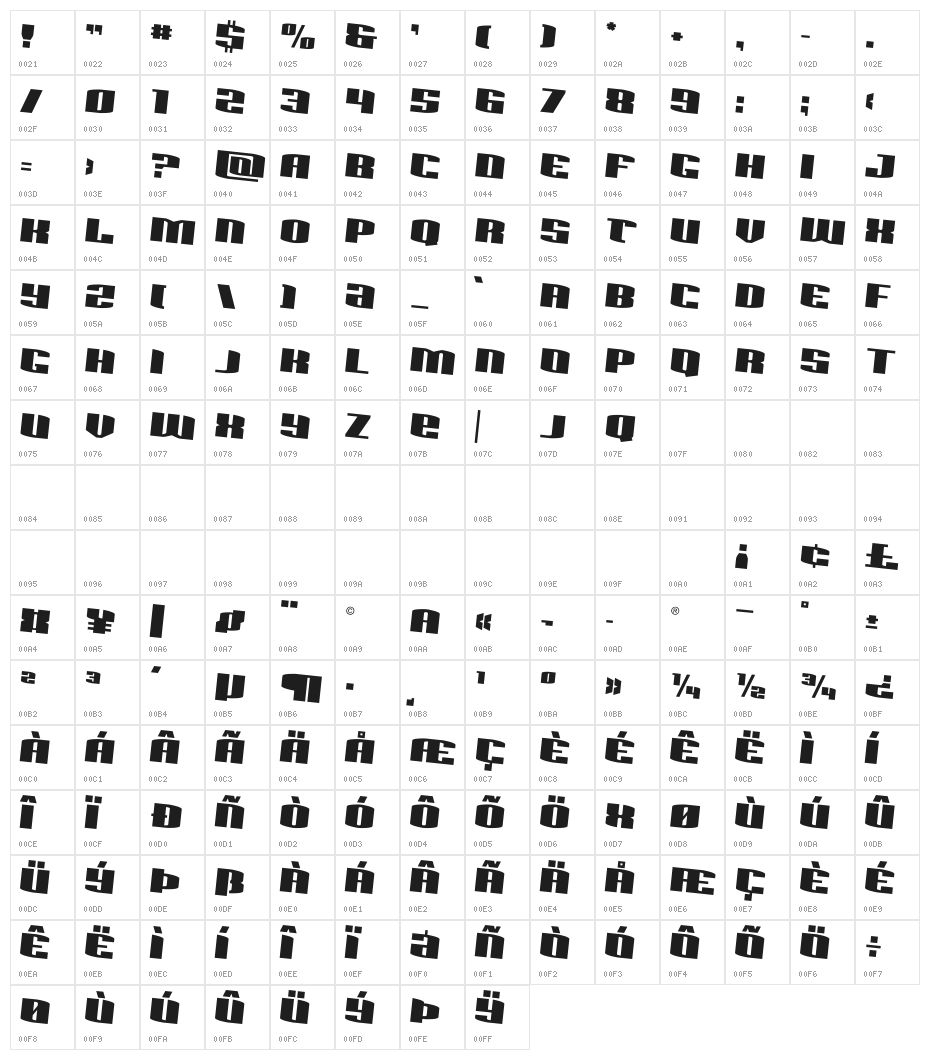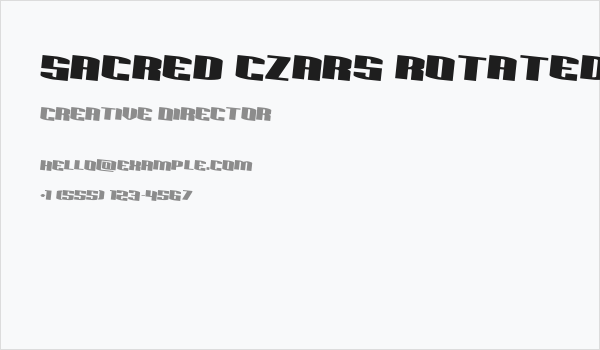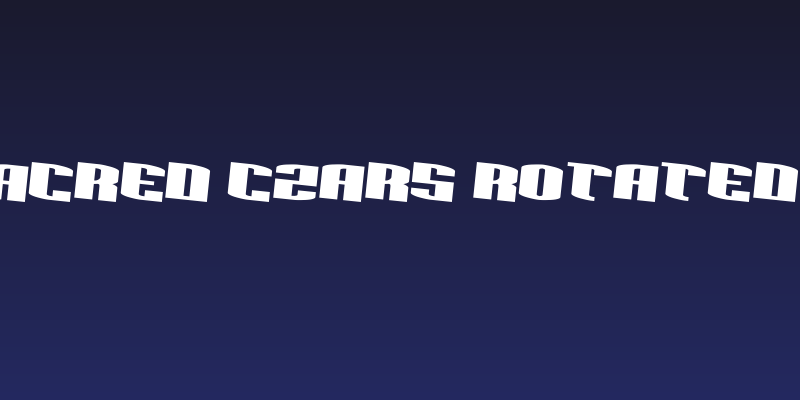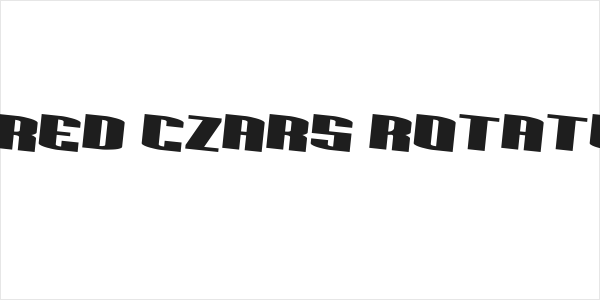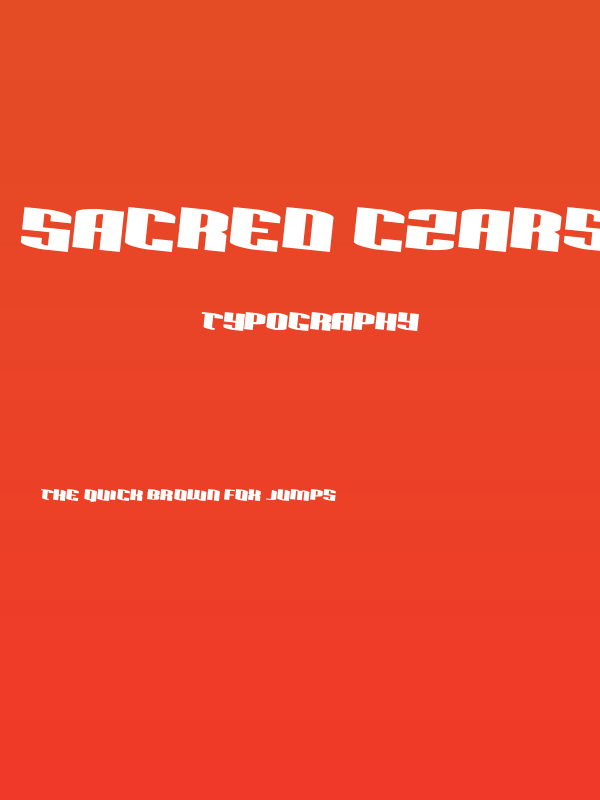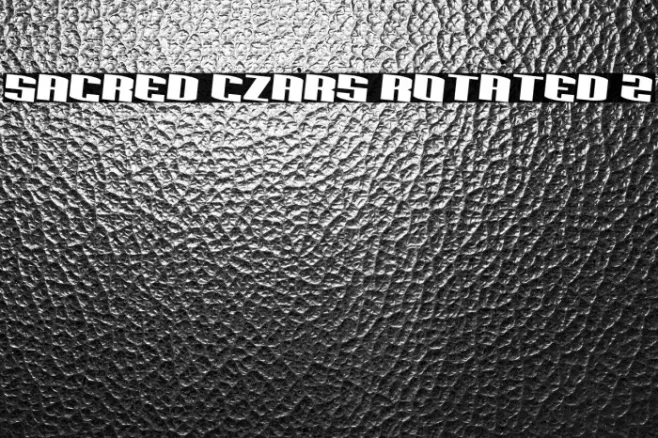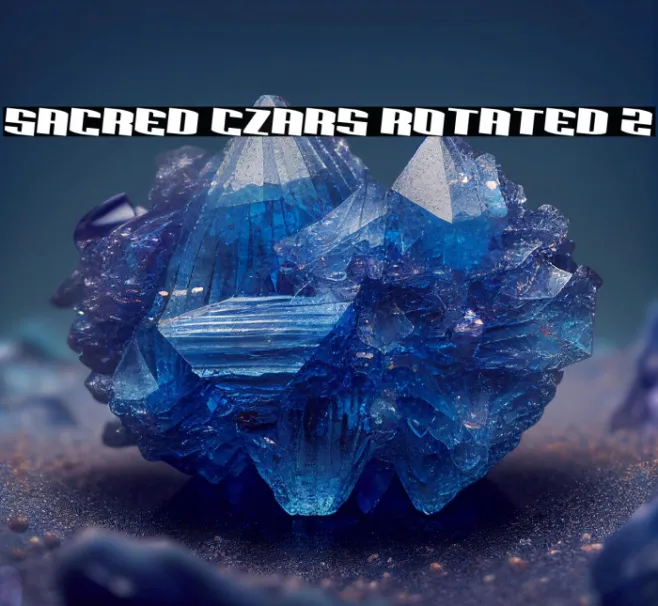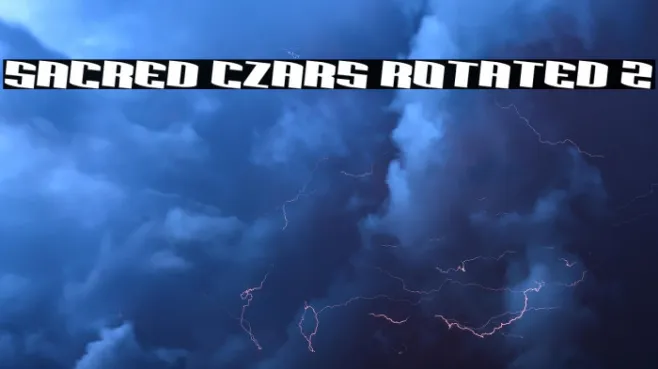
Sacred Czars Rotated 2 Font
Sacred Czars Rotated 2 Description
This font features a bold and striking design with a strong presence. The characters are heavily stylized with angular cuts and a slightly condensed form, giving them a dynamic and aggressive appearance. The uppercase letters are particularly prominent, with a uniform height and width that enhances their impact. The lowercase letters maintain the same bold style, ensuring consistency throughout the typeface. Numbers and special characters are equally bold, making them stand out in any design. The overall look is modern and edgy, suitable for projects that require a strong visual statement.
| Proposed Projects | Ideal for posters, logos, branding, and any design needing a bold statement. |